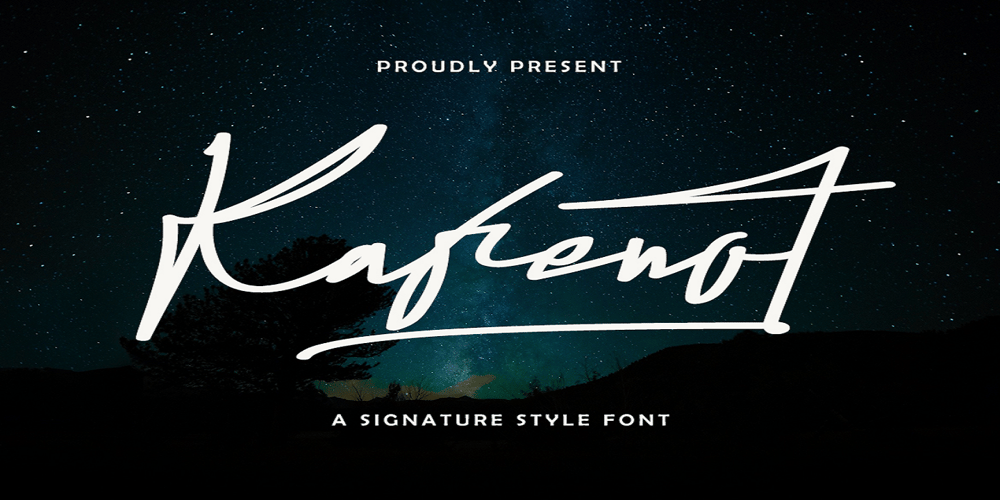
Kafenot
Kafenot font
Kafenot Font Family was designed by Saiful Anwar and published by Sealoung. Kafenot contains 1 styles and family package options. Kafenot is a beautiful and classy script font. This stunning font is a stylish homage to classic calligraphy. It features a varying baseline, smooth lines, gorgeous glyphs and stunning alternates. Whether you’re looking for fonts for Instagram or calligraphy scripts for DIY projects, Kafenot will turn any creative idea into a true piece of art!